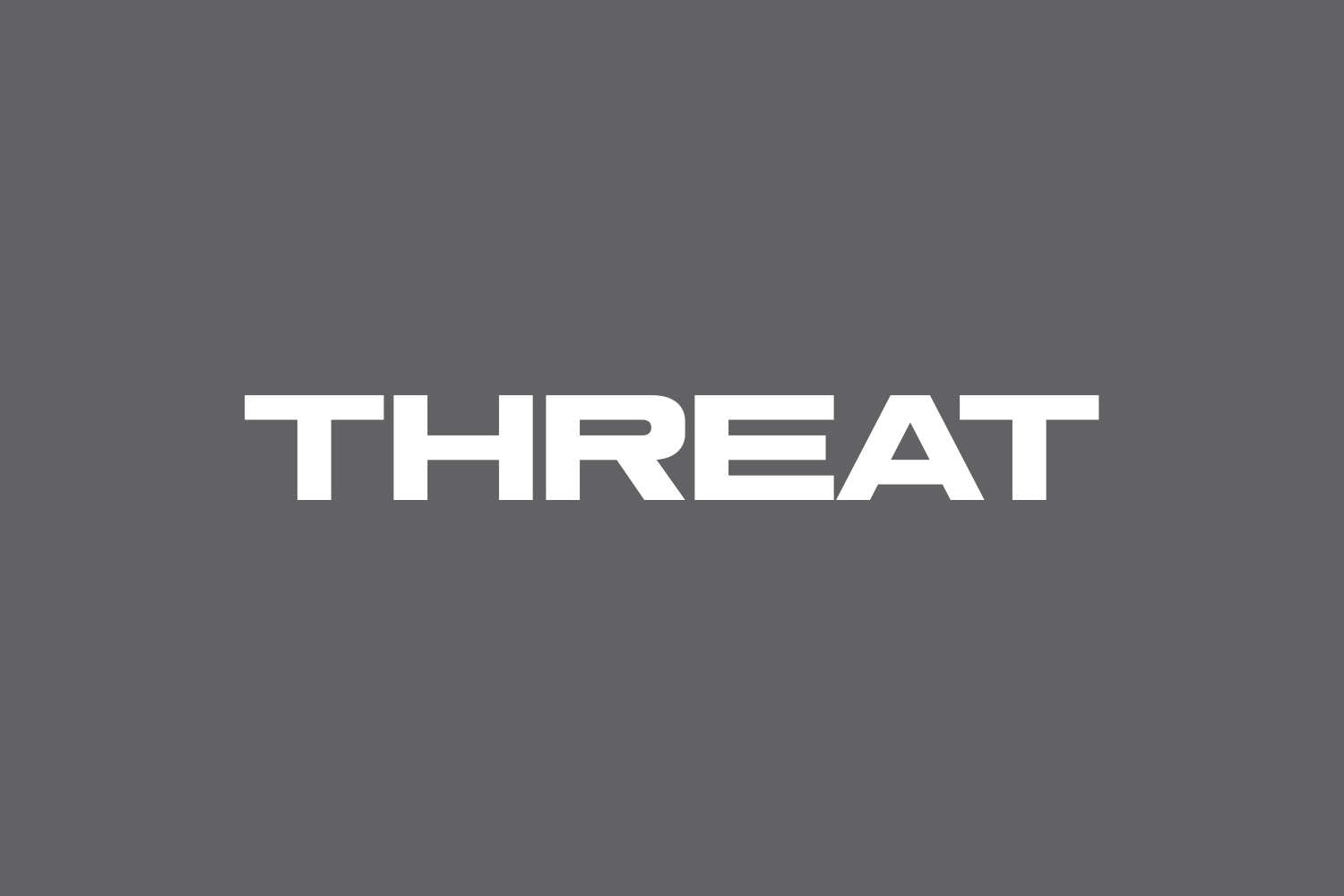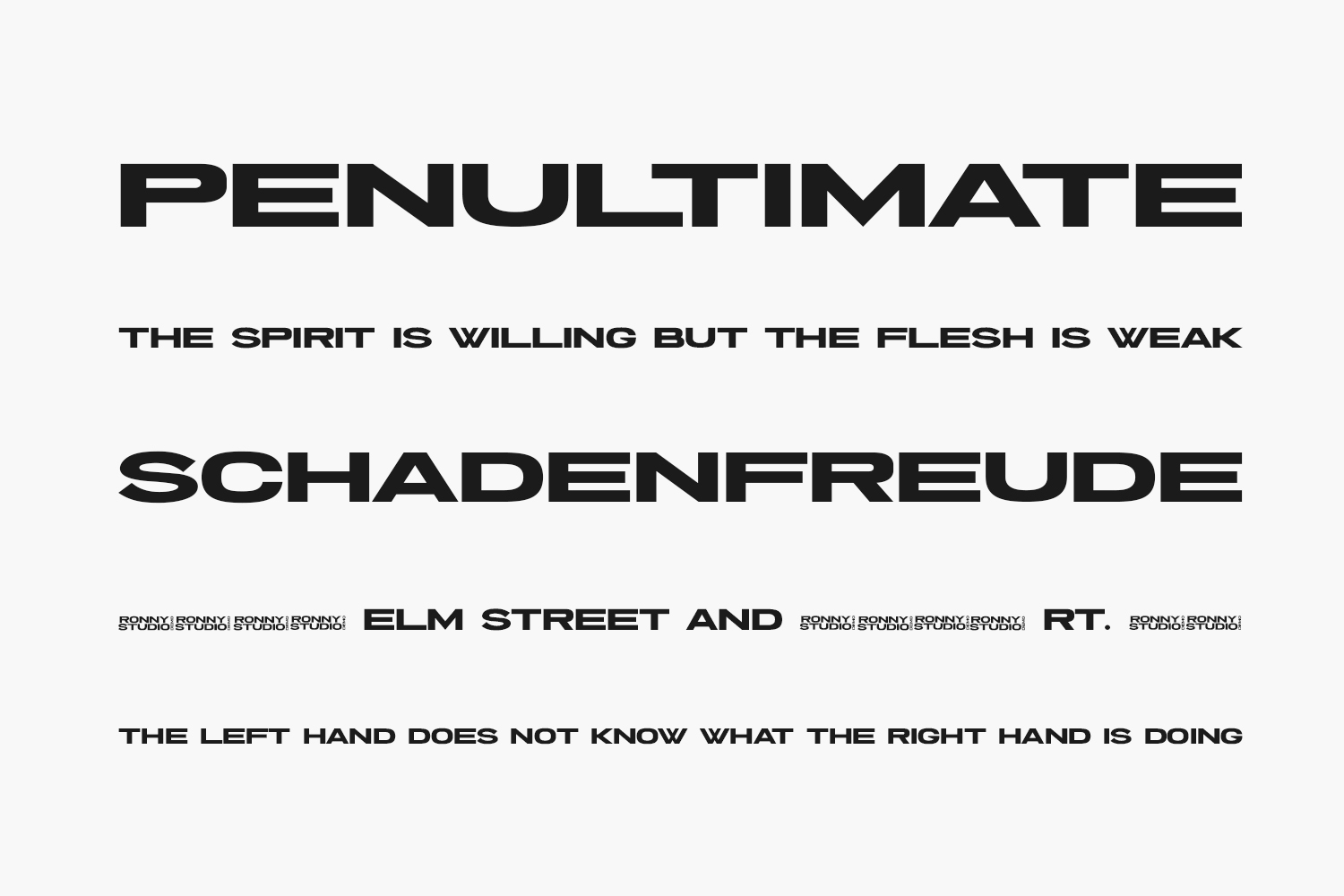
Threat is a bold and elegant all-caps typeface designed by Ronny Studio to bring high contrast and strong presence to your creative projects. With its clean lines, structured detailing, and powerful visual tone, this free decorative font works perfectly for crafting modern logos, impactful posters, magazine headers, social media banners, and more. Available in OTF format — ideal for designers seeking a striking sans-serif style that commands attention while maintaining clarity.
- Bold Caps Style: Combines high-contrast letterforms with clean edges for a professional, eye-catching appearance.
- Ideal for Posters & Headers: Perfect for large text applications like billboards, event banners, or digital headlines needing visibility.
Threat shines across a variety of creative applications:
- Logos & Branding: Adds intensity to brand identities for lifestyle blogs, action brands, or fashion labels needing a strong tone.
- Poster & Billboard Design: Designed for maximum visibility — makes headlines pop in outdoor advertising and movie posters.
- Social Media Graphics: Creates bold text overlays for Instagram Stories, TikTok videos, or YouTube thumbnails with a dramatic appeal.
- Editorial Headers: Stands out in blog titles, magazine covers, and advertising campaigns with a crisp, stylish look.
- Packaging Design: Brings strength to product tags on novelty items, beverage cans, or streetwear labels requiring a bold presence.
To get the most from Threat, pair it with thinner fonts or minimalist layouts to let its bold character shine. Use this font at large sizes to highlight its expressive strokes and structural clarity. For print work, apply subtle shadows or textured backgrounds to enhance legibility on dark or dynamic visuals. Try our interactive font preview tool below to test Threat with your own text before downloading!
- Glyphs: Uppercase (A-Z), numerals, punctuation, and special characters.
- Language Support: English, Spanish, French, German.